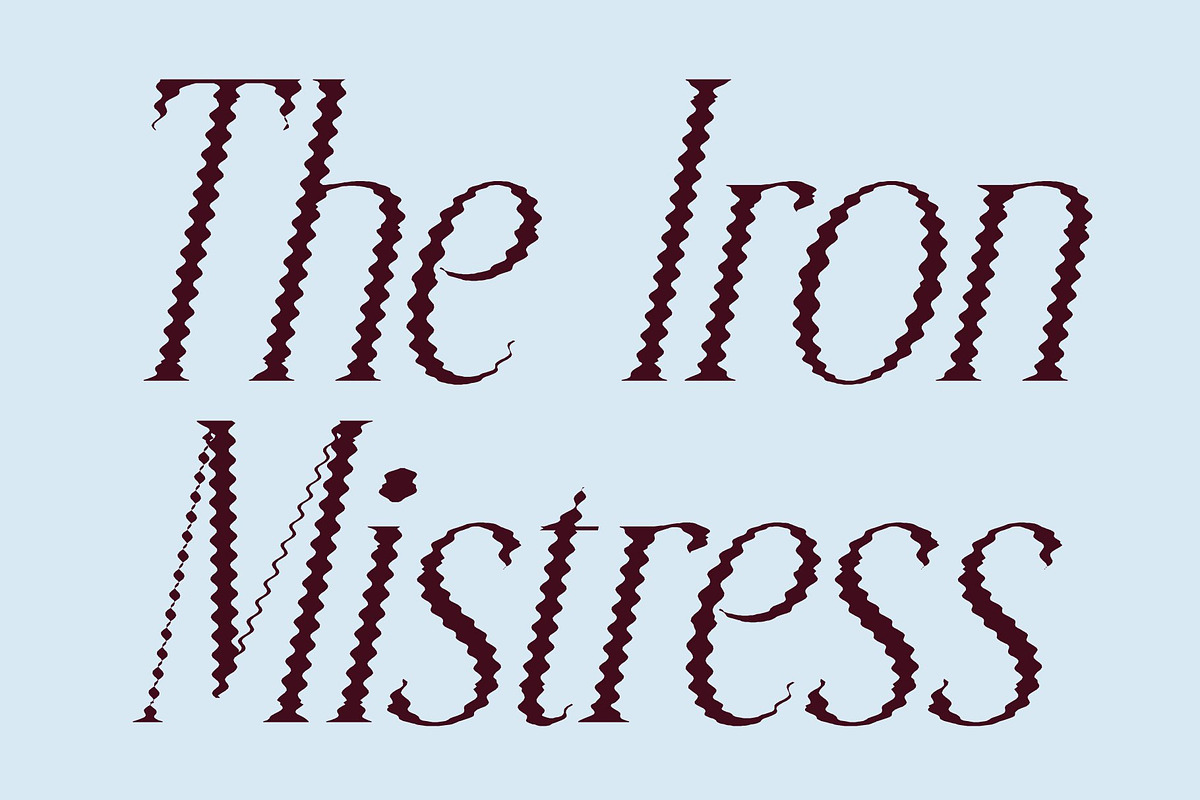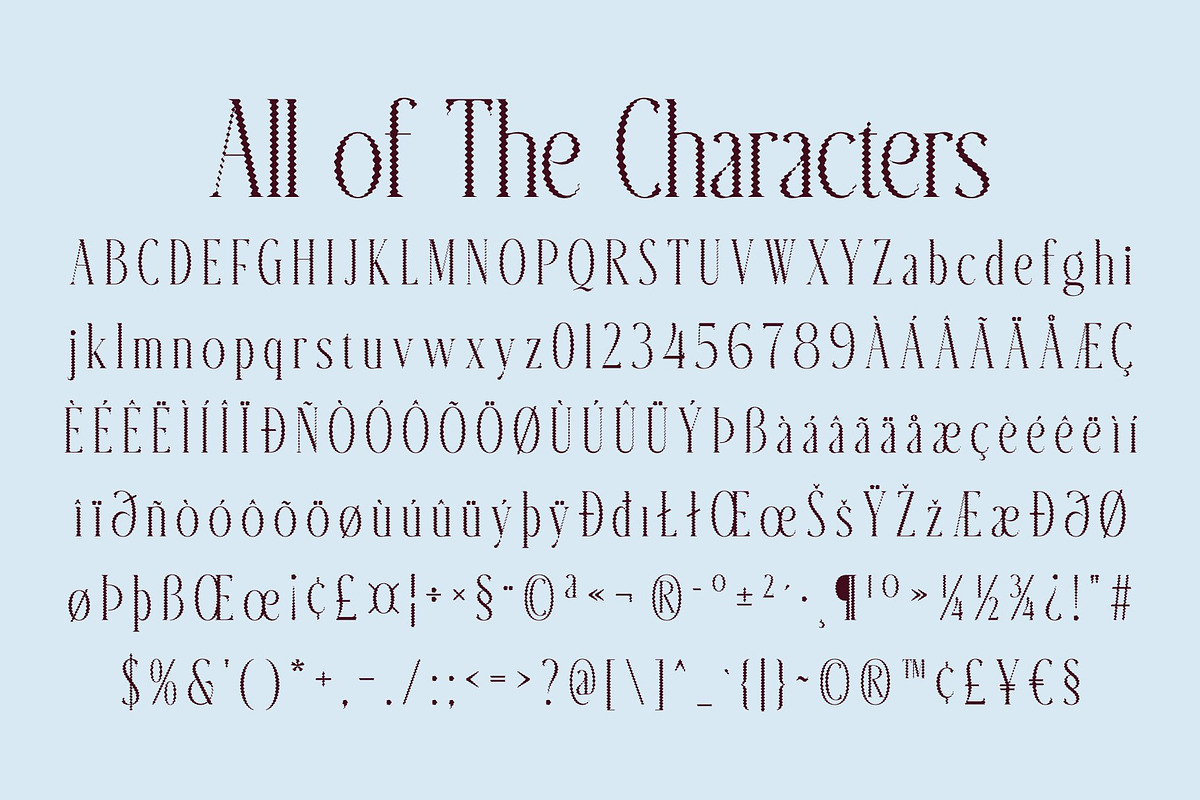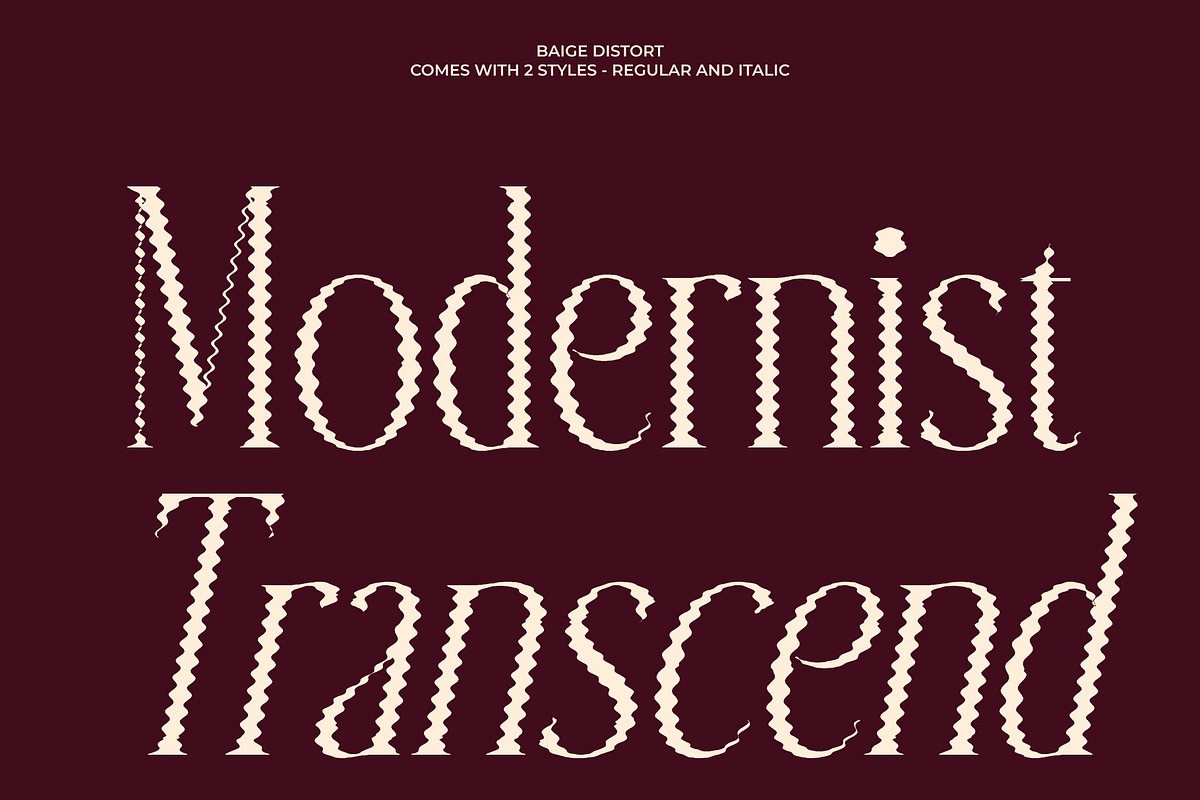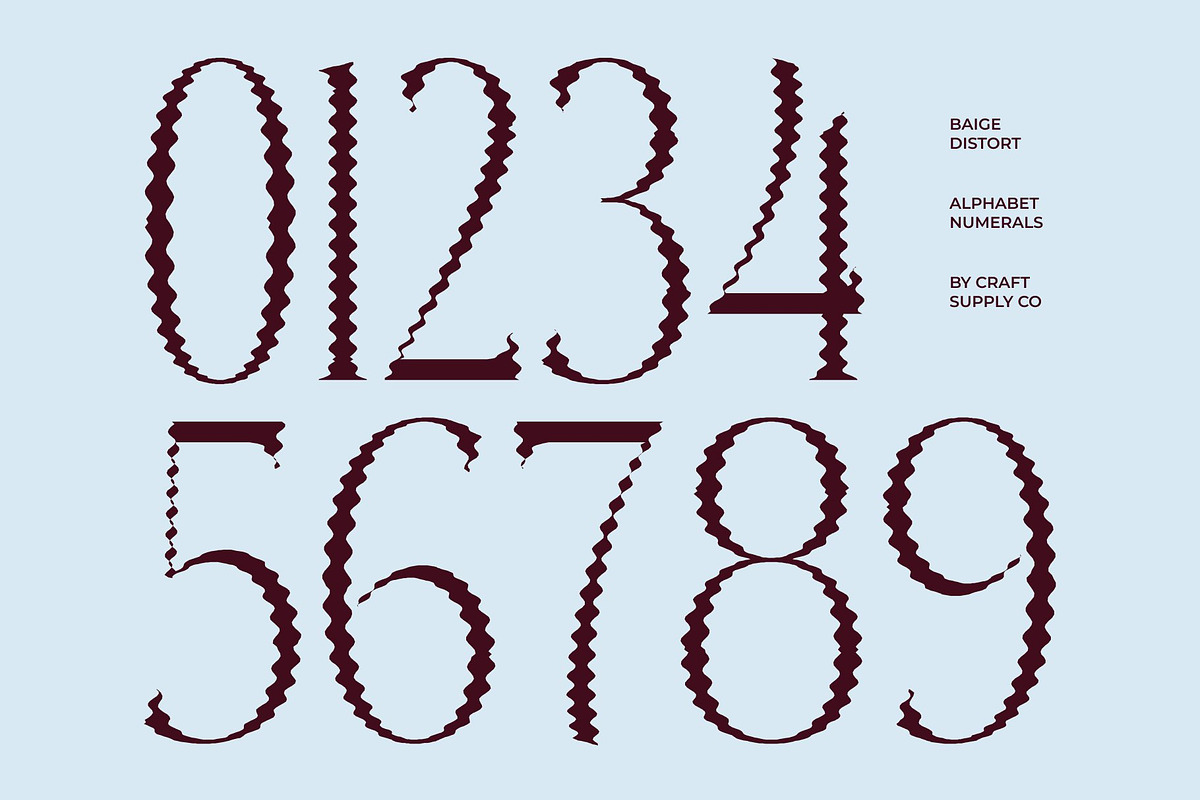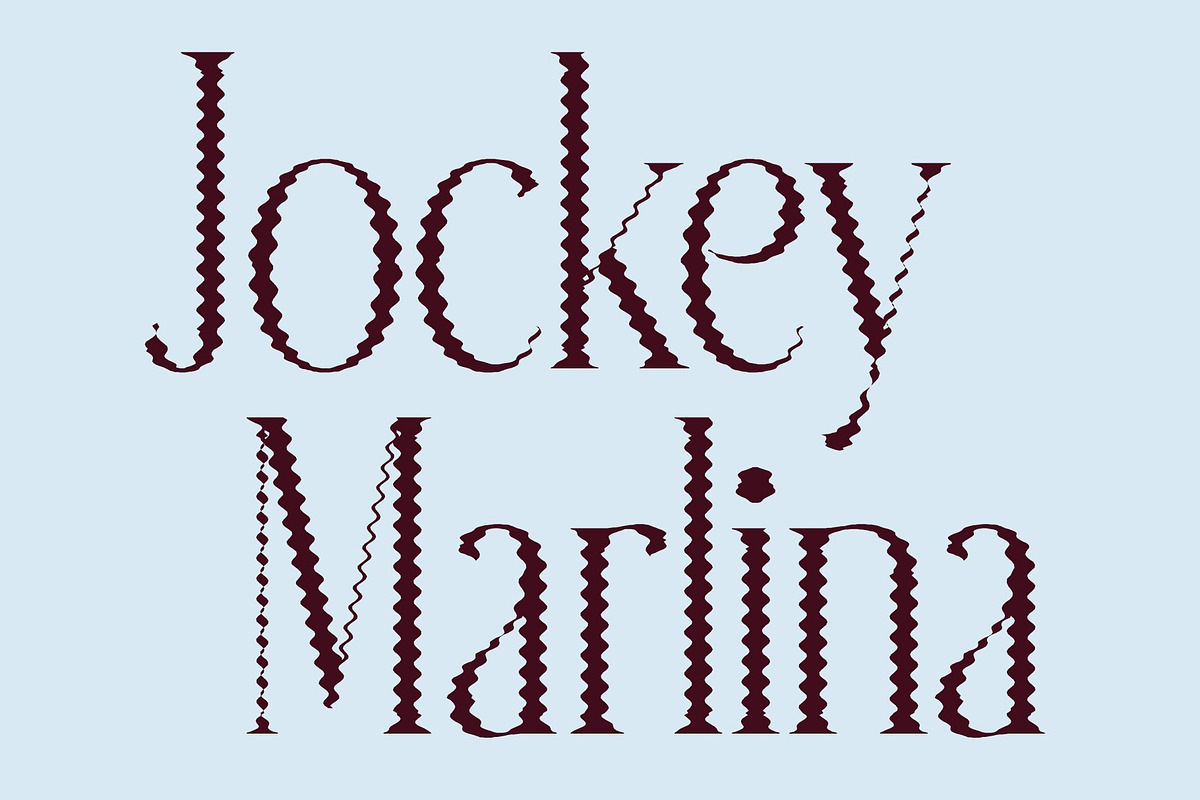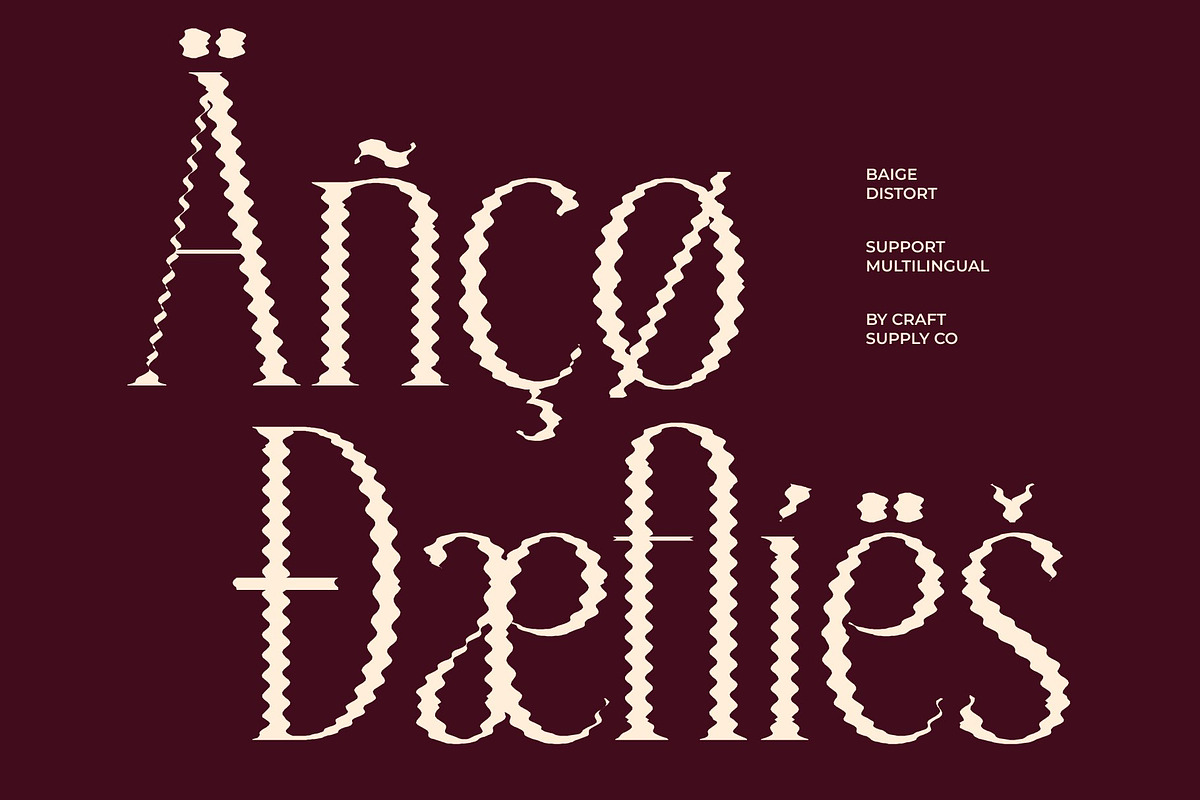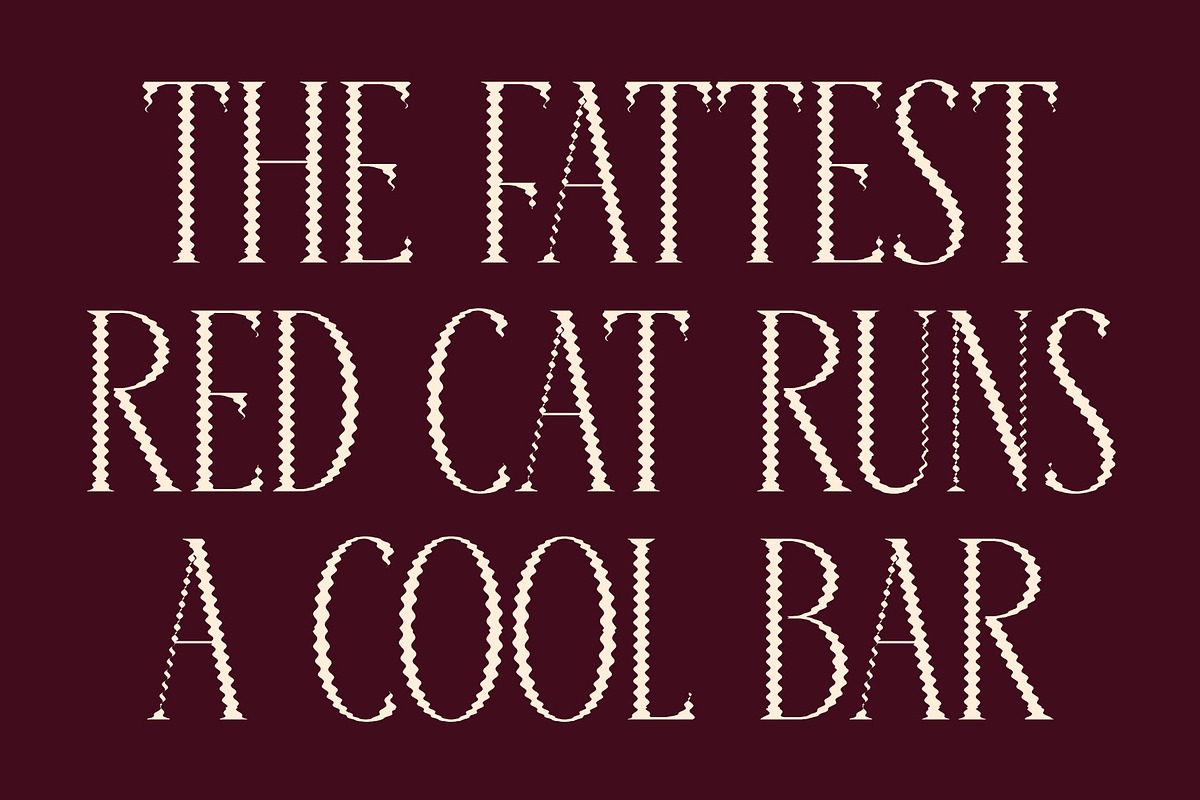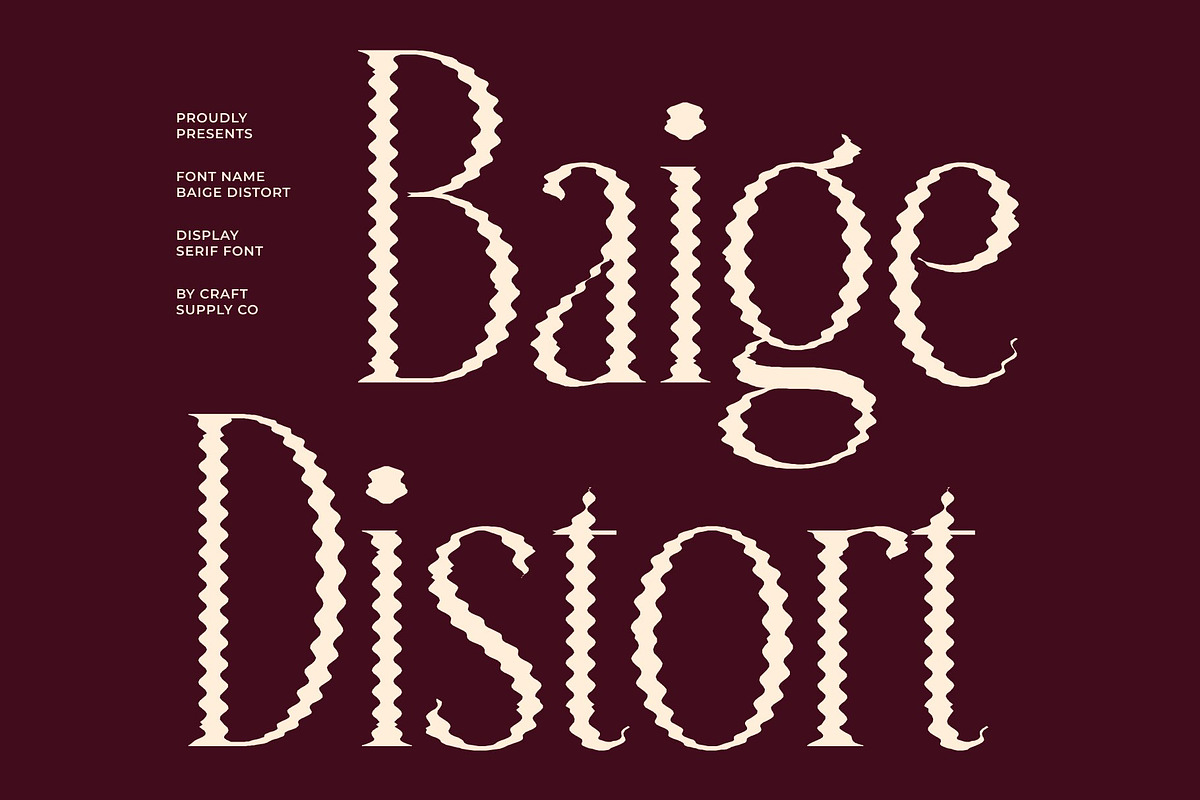
Baige Distort
Baige Distort – Condensed Serif Font: Where Refined Elegance Meets Organic Distortion
Tall Condensed Forms with Luxurious Sophistication This is a modern serif font defined by its tall, condensed letterforms and sleek elongated serifs. Its refined structure creates a graceful and poised visual identity filled with elegance, authority, and contemporary sophistication.
Distort Effect with Gentle Organic Motion This font features fluid organic contours along the letter edges that create a subtle melting effect. This expressive detailing introduces movement, softness, and artistic visual depth while preserving the font’s refined serif structure. The result is a dynamic appearance that feels luxurious, modern, and visually captivating.
Timeless Refinement with Contemporary Character This font delivers a typographic identity that feels sophisticated, expressive, and memorable. Its elongated forms combined with flowing contours create a unique balance between classic luxury and artistic innovation, making the font ideal for premium visual communication.
Perfect for Editorials, Branding, and Luxury Packaging This font perfect for high-end magazines, boutique brand identities, refined product packaging, editorial layouts, luxury advertising, invitations, fashion campaigns, and premium promotional materials. Its fluid distorted serif forms make it ideal for logos, headlines, visual identities, and creative projects that seek to communicate elegance, exclusivity, and authority.
Baige Distort Regular
Baige Distort Italic